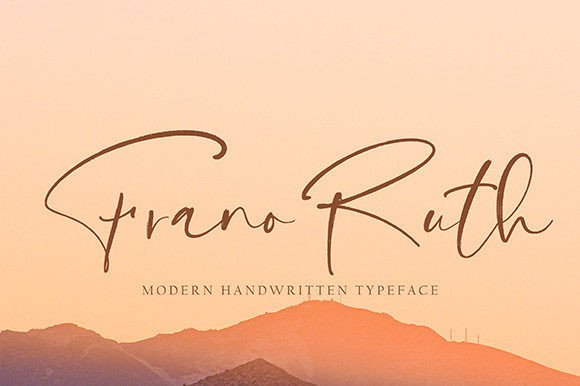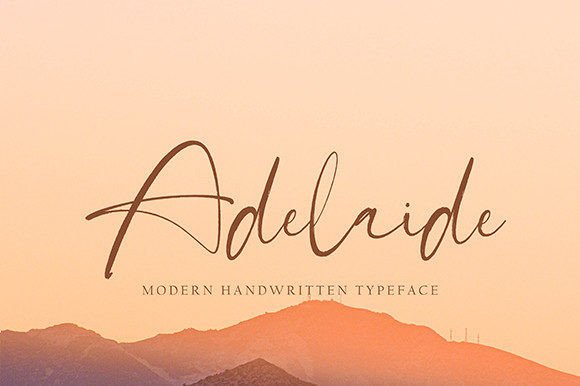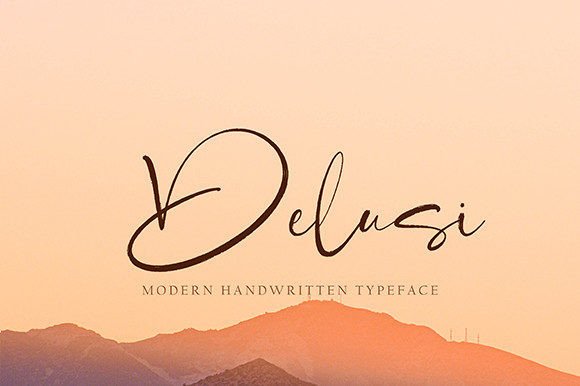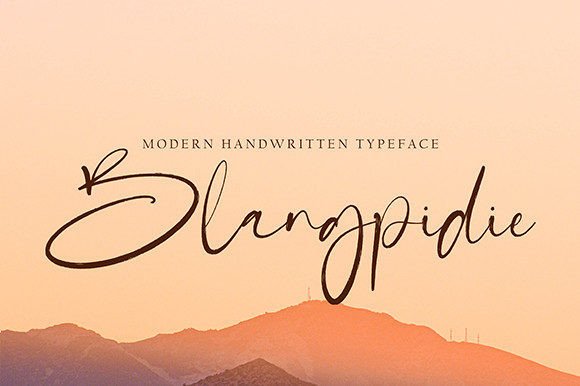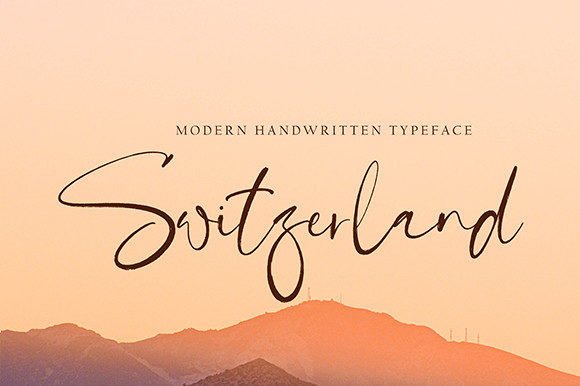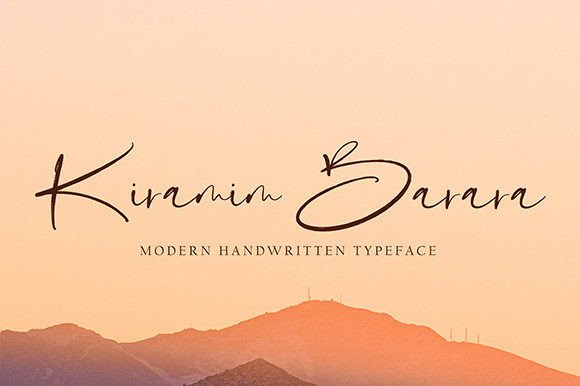
Introduction to Massilan Font
Massilan is a beautiful and modern handwritten font perfect for quotes, logos, blog headers, posters, branding, letters, invitations, stationery, and many more.
Cool and stylish, it will make a great asset to your fonts library .
Key Features of Massilan Font
Why Choose Massilan Font?
Massilan Font offers exceptional quality and versatility, making it a valuable addition to your design toolkit. Whether you’re creating for personal projects or commercial use, Massilan Font delivers professional results.